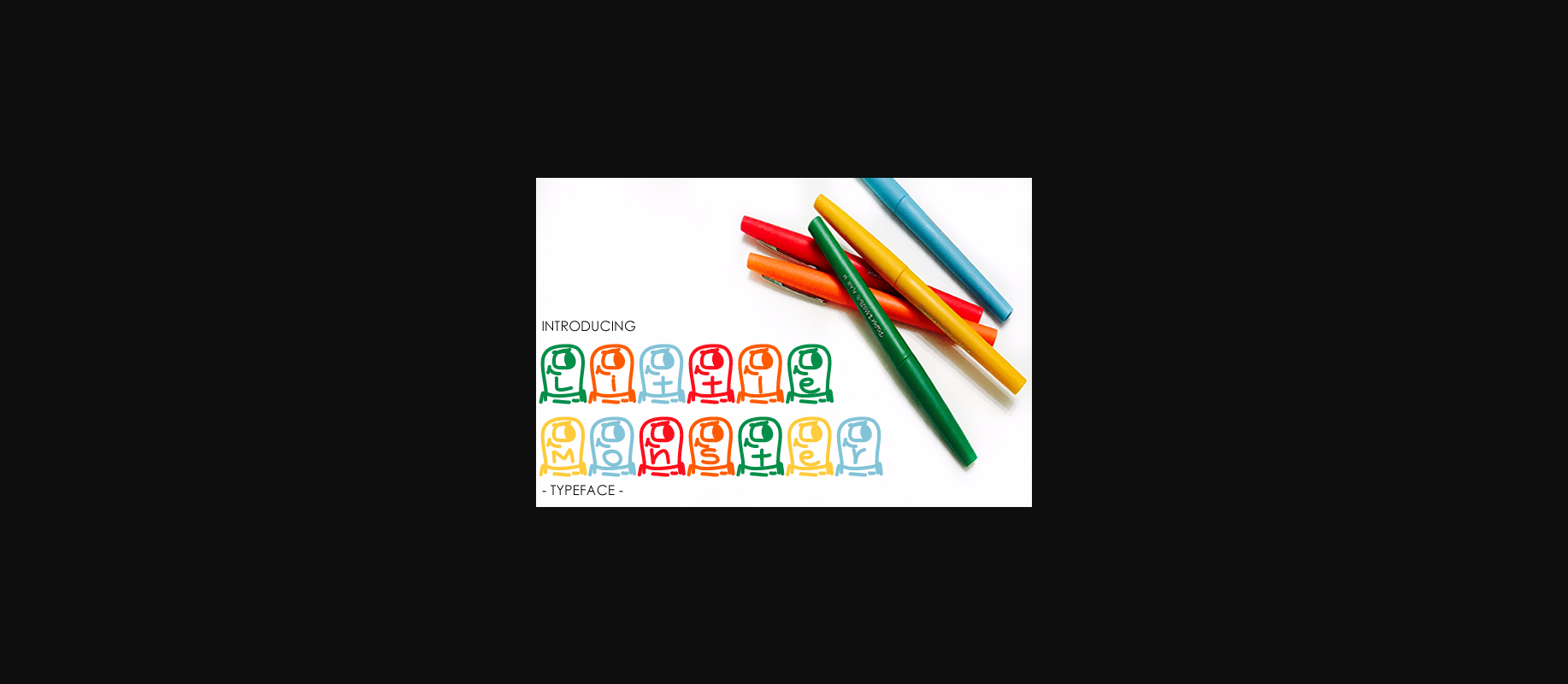
Little Monster Font
About Little Monster Font
Little Monster is the perfect monster monogram font! This font has little monsters that surround each character, so that your work can have a friendly and completely quirky feel.